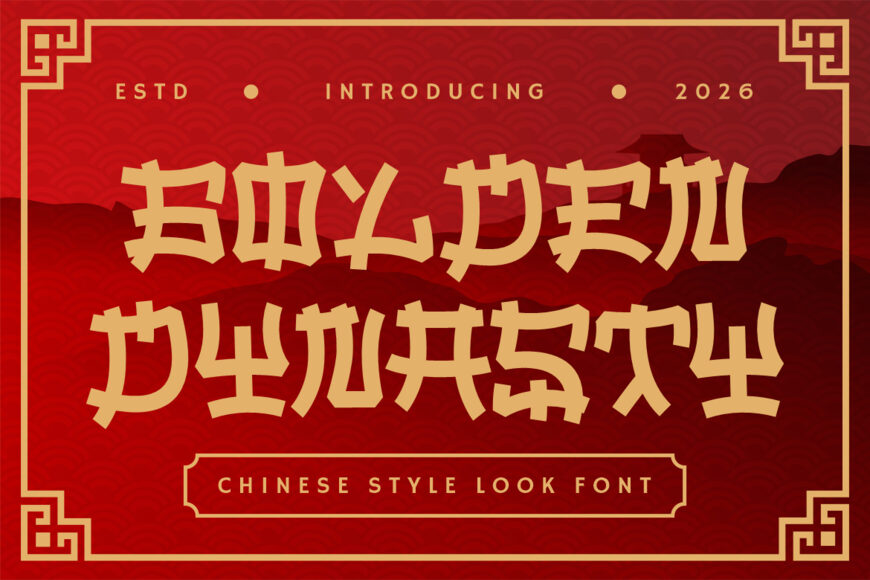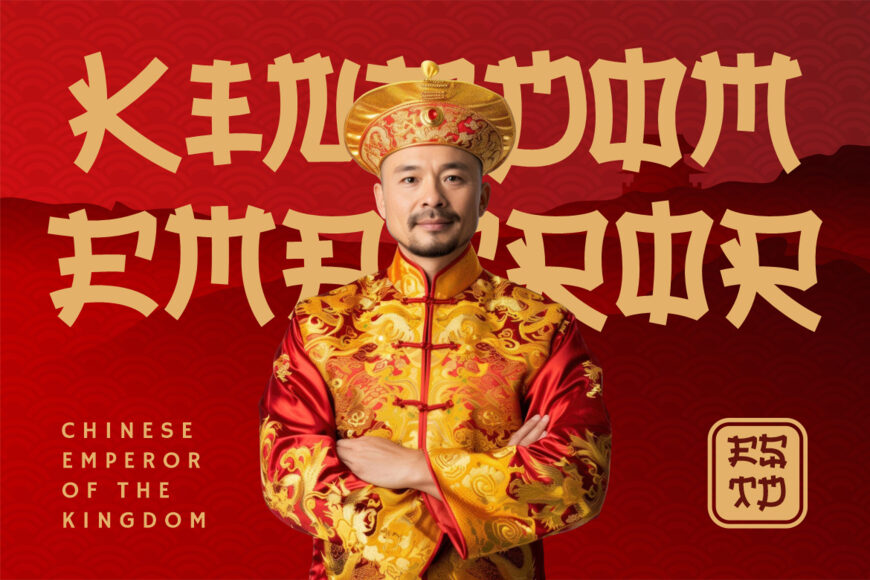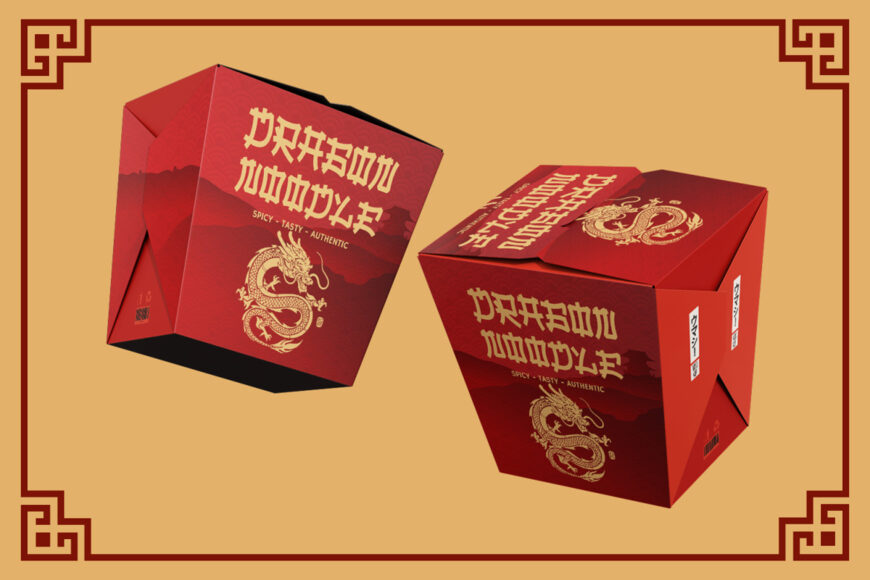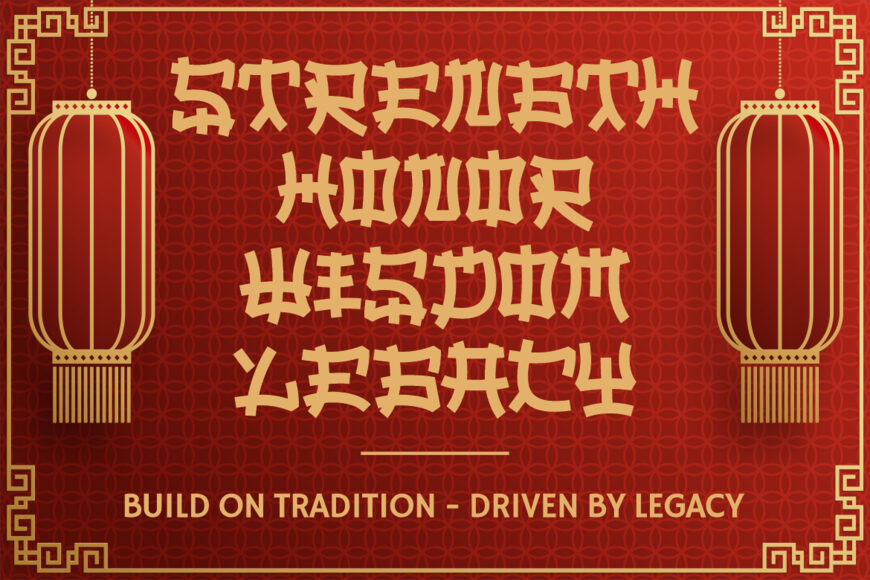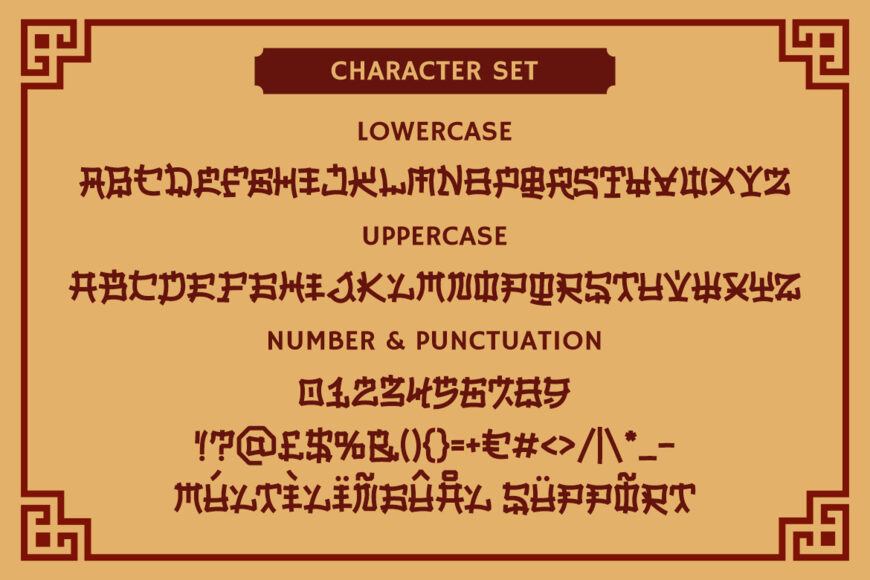
Golden Dynasty is a Chinese-style font defined by sharp angles, bold strokes, and structured letterforms. Its clipped edges and decorative details create a distinctive look inspired by traditional Asian signage. Powerful, festive, and dramatic, it is ideal for eye-catching logos and branding.
The font also works well for headlines, posters, advertisements, stickers, greeting cards, magazines, and book covers. It suits cultural events, festival promotions, tourism materials, and creative brands seeking a memorable China-inspired aesthetic.